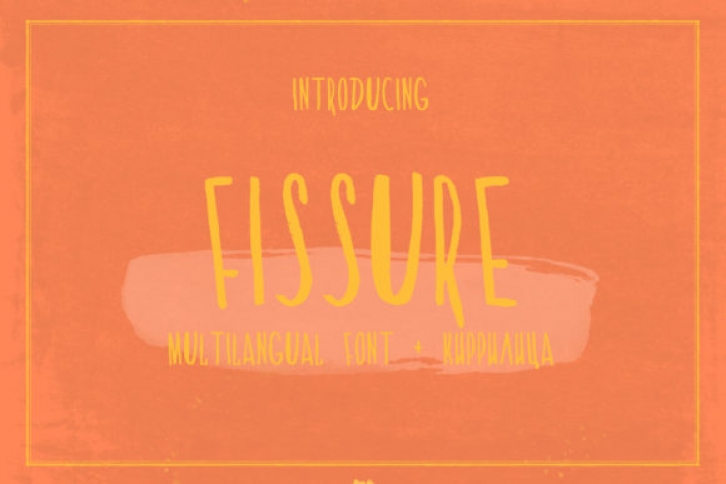
Fissure is display font with a dry brush texture made from marker. Fissure is suitable for logo, product branding or for text overlay to any background image. It includes uppercase letters, numerals & glyphs.